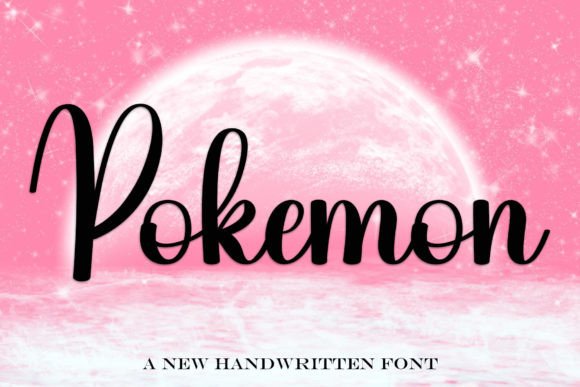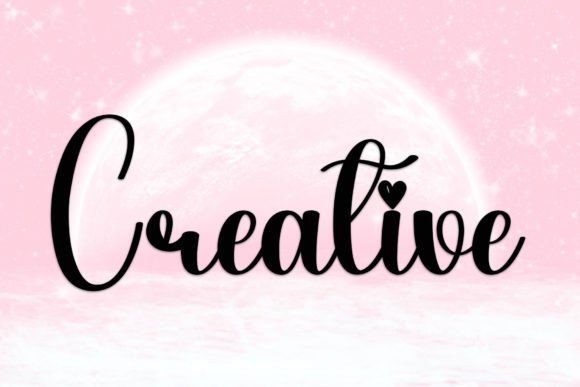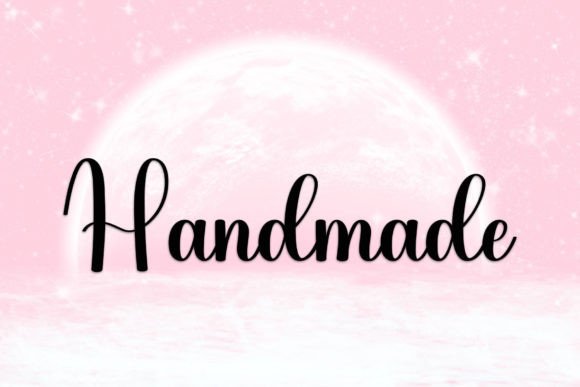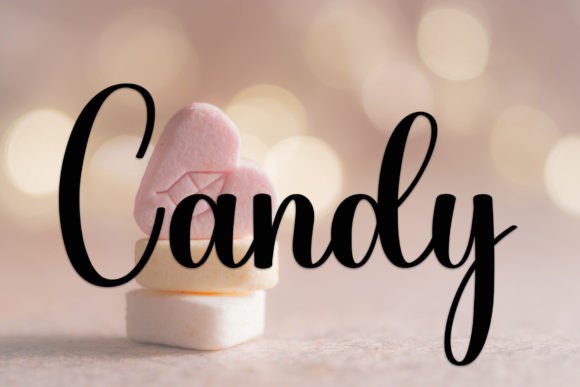
Pokemon Font
About the Pokemon Font
We are excited to introduce Pokemon Font, a must-have typeface for any serious designer. Pokemon is a neat and beautiful handwritten font described by an elegant touch, perfect for your favorite projects
Fall in love with its incredibly distinct and timeless style, and use it to create spectacular designs!
Its elegant yet playful hand-drawn style makes it ideal for branding projects needing a touch of whimsy, particularly logos, short taglines, and packaging for products targeting a younger demographic or those with a lighthearted brand identity. It shines in headlines and short text segments within posters or social media graphics. However, its delicate nature makes it unsuitable for body text or UI elements where high readability is paramount.
Consider pairing Pokemon Font with a clean sans-serif like Open Sans for a balanced contrast, or a geometric sans-serif like Futura for a more modern feel. For a touch of sophistication, a subtle serif like Garamond could also work well. Avoid pairing it with overly ornate or heavily textured fonts; keeping the supporting typefaces simple ensures legibility and maintains the font’s unique character.
The overall personality of Pokemon Font is best described as friendly, playful, and charming, with an underlying elegance that prevents it from becoming overly childish. This makes it versatile for projects that require a delicate balance of fun and sophistication.
Pokemon Font Usage Examples
Pokemon Font Example